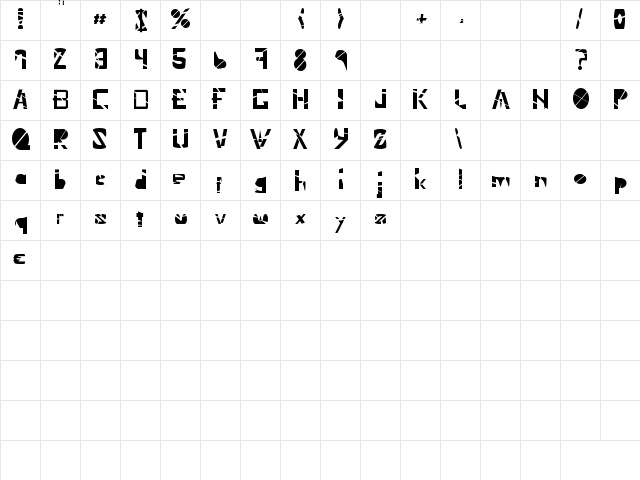
Xbox 360 stripe Regular
Design Context for Xbox 360 stripe Typeface
Xbox 360 stripe is a composed and adaptable typeface that performs quietly and consistently across a wide range of design contexts.